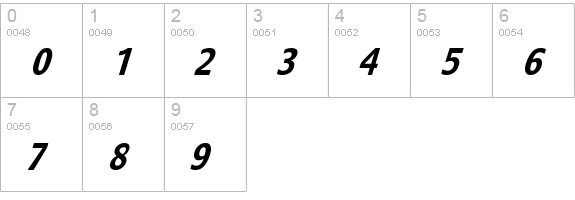
StackCndObl-Bol Font Details
Introducing StackCndObl-Bol, a striking and versatile font that seamlessly blends modernity with sophistication. With its unique blend of condensed and oblique elements, this font exudes a bold and dynamic presence, making it perfect for a wide range of design projects. StackCndObl-Bol boasts a sleek and streamlined appearance, with its carefully crafted letterforms that effortlessly flow into one another. Its condensed nature allows for maximum impact in limited spaces, while the oblique angles add a sense of energy and movement to each character. This font is incredibly versatile, lending itself to a multitude of design applications. Whether you're creating eye-catching headlines, attention-grabbing logos, or elegant packaging, StackCndObl-Bol is sure to make a lasting impression. One of the most appealing aspects of StackCndObl-Bol is that it is available to download for free at FontsMarket.com. This means that designers and creatives can easily access this exceptional font without any financial constraints. It's a truly invaluable resource for those seeking a high-quality typeface that doesn't compromise on style or functionality. In conclusion, StackCndObl-Bol is a font that effortlessly combines contemporary aesthetics with timeless appeal. Its condensed and oblique design elements make it a captivating choice for various design projects, while its availability as a free download on FontsMarket.com ensures that it is accessible to all. Embrace the power and versatility of StackCndObl-Bol and elevate your designs to new heights.